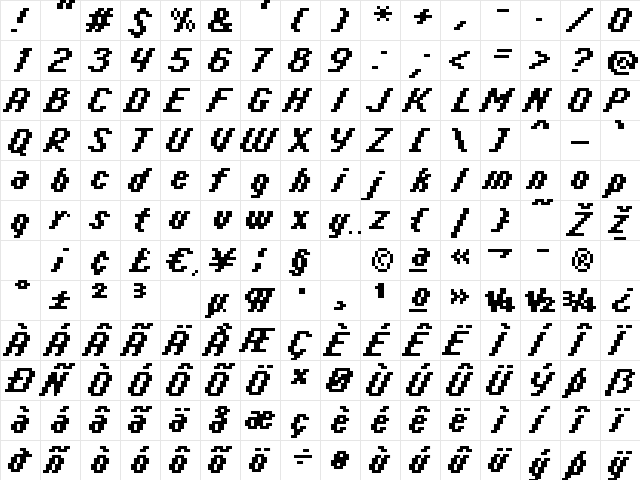
italic 08_66 Regular
| Foundry | Adobe Systems Incorporated |
| Designer | Craig Kroeger |
Design Context for italic 08_66 Typeface
italic 08_66 is a composed and adaptable typeface that performs quietly and consistently across a wide range of design contexts. The dynamic lean of this cut emphasises speed and emphasis in any layout.
Pro Tip: Use italic 08_66 for emphasis, pull quotes, and subheadings where its slanted energy can add rhythm to the layout.